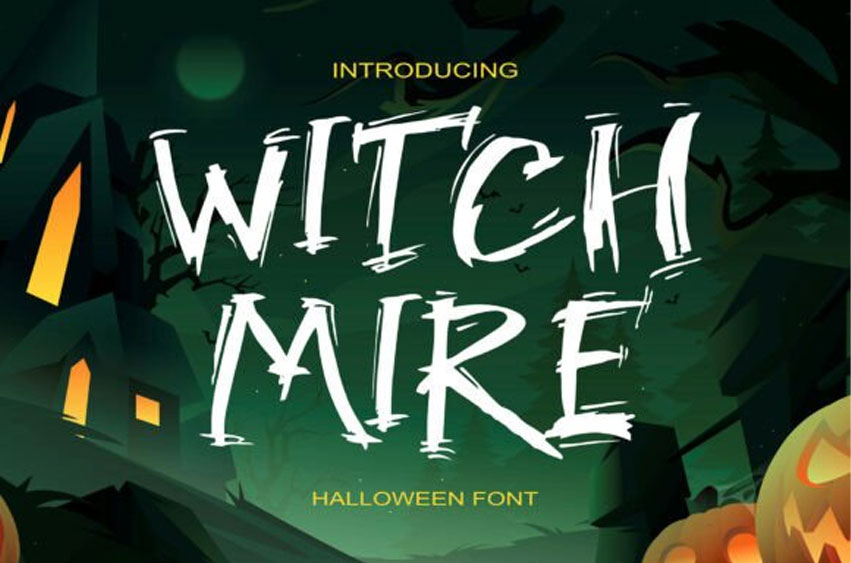
Witch Mire Font Unleash your dark creativity with Witch Mire, a chilling brush-style typeface meant to stir up spectral imaginations.
Its eerie depth holds the thrilling intensity of horror, echoing through untamed strokes and macabre textures.
Perfect for crafting spine-chilling posters, bone-rattling party invitations, ghastly book covers, and unnerving social media posts, Witch Mire captures the uneasy essence of Halloween in every letter. With a futuristic combination of uppercase, lowercase, numerals, punctuation, and comprehensive multilingual support, Witch Mire embodies universal appeal, ensuring its spectral charm resonates beyond borders. Let the haunting allure of Witch Mire give your work the frightfully memorable edge it deserves.